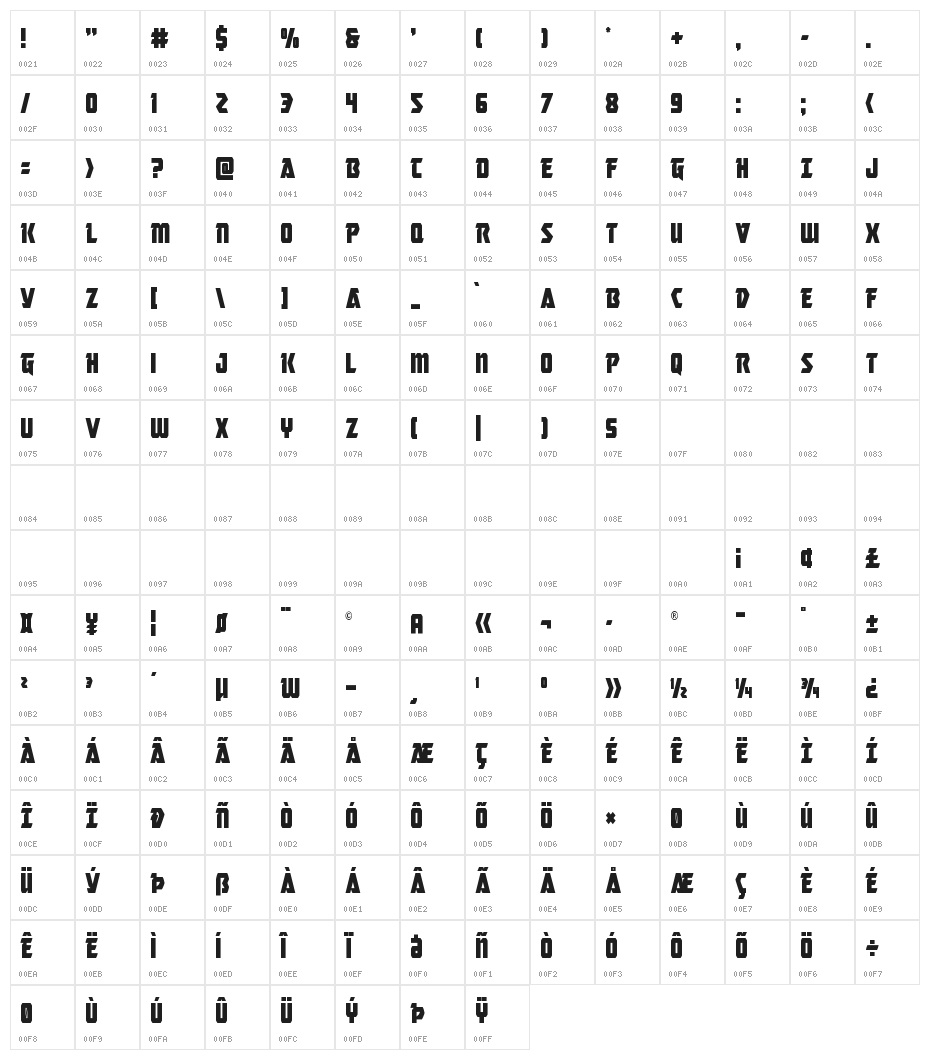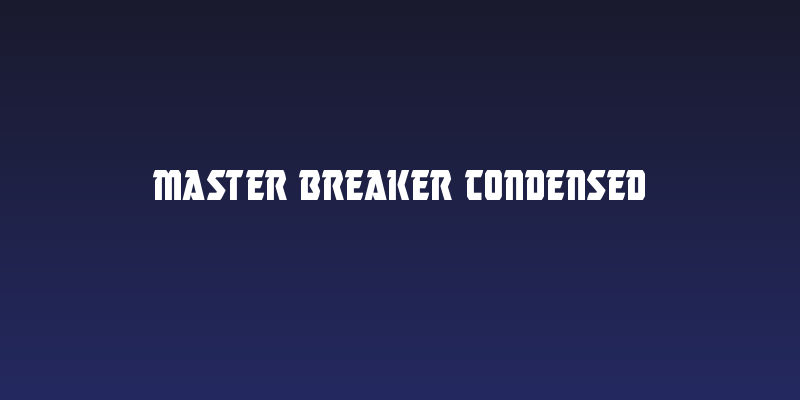
Master Breaker Condensed Font
Master Breaker Condensed Description
This font features a bold and striking design with a condensed structure, characterized by sharp angles and geometric shapes. The uppercase letters are particularly prominent, with a strong presence that demands attention. The numbers and special characters maintain the same boldness, ensuring consistency across all elements. The overall style is modern and assertive, making it suitable for impactful designs. The font's condensed width allows for efficient use of space, making it ideal for headlines and titles where space is limited but impact is essential.
| Proposed Projects | Ideal for use in posters, logos, branding materials, and any design requiring a strong, impactful typeface. |